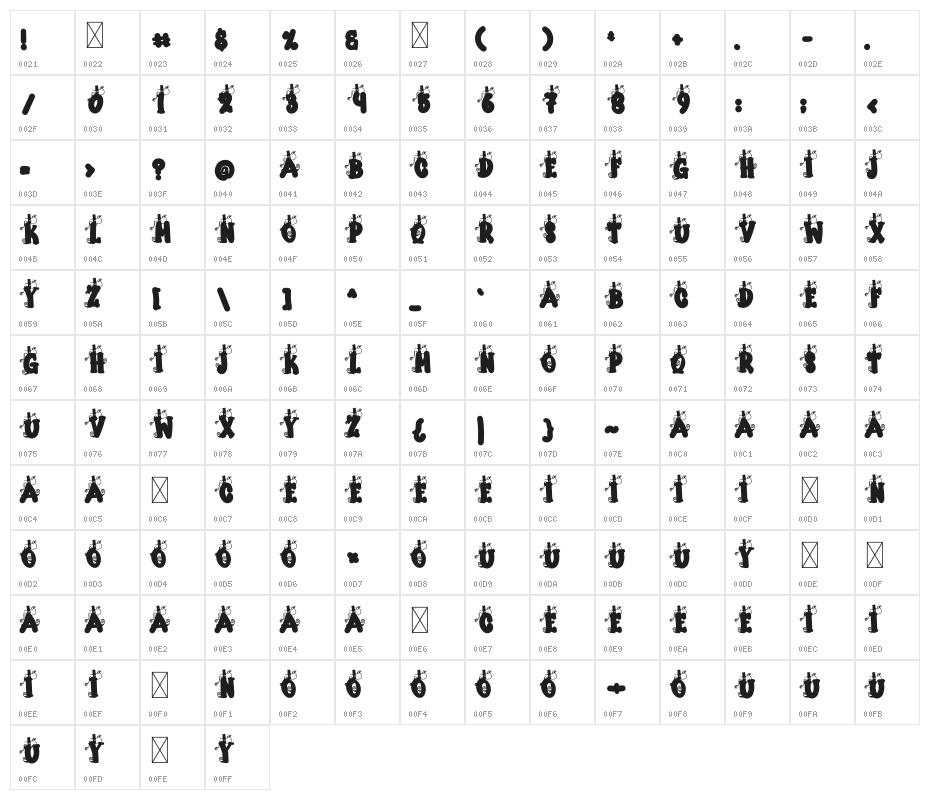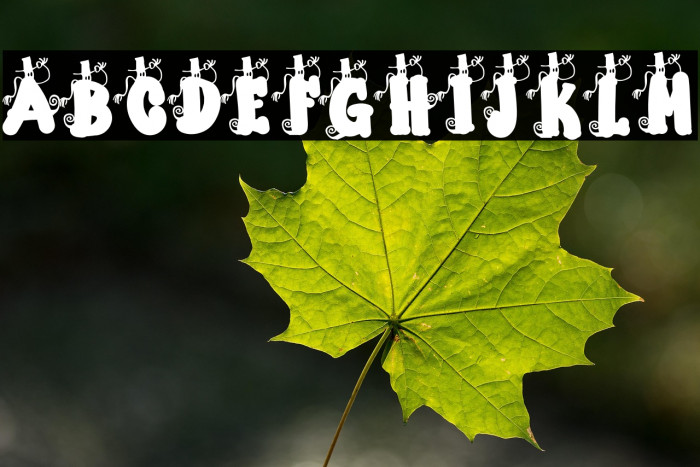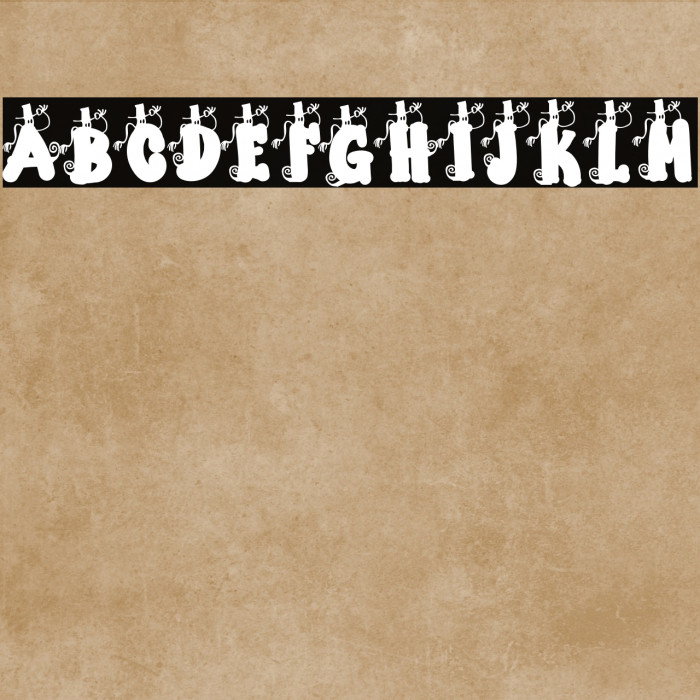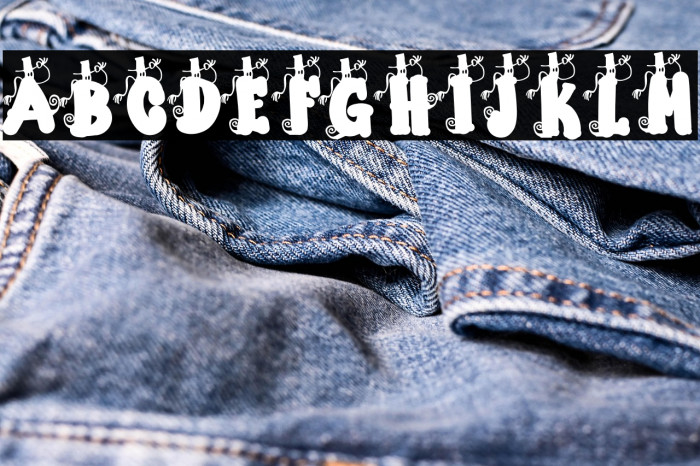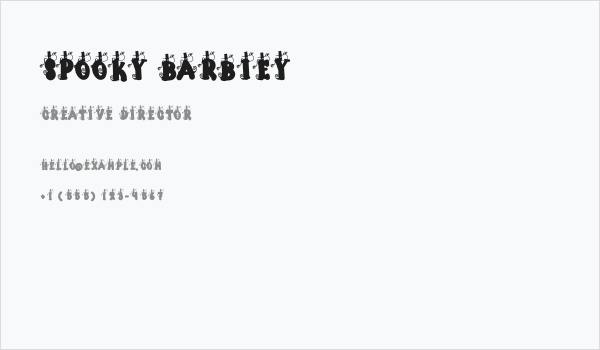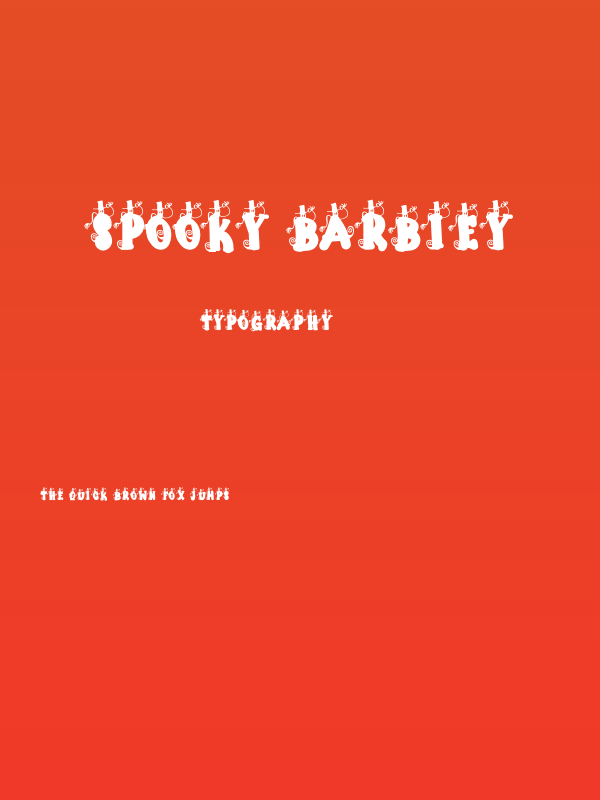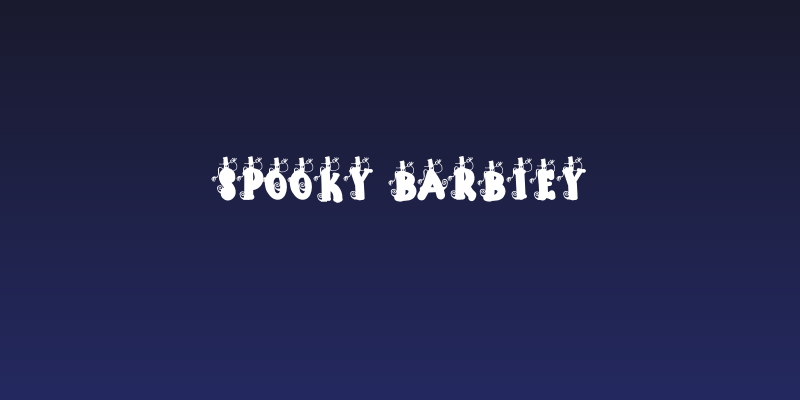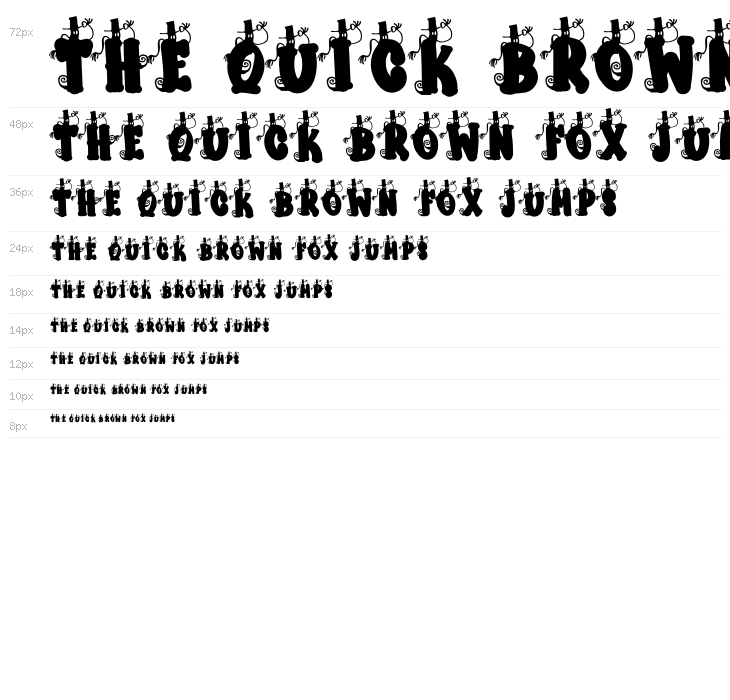
Spooky Barbiey Font
Spooky Barbiey Description
A playful, bold display font with whimsical, spooky elements such as cartoonish spiders and hats integrated into each character, featuring rounded edges and a hand-drawn, decorative style.
| Overall Style | Decorative, Playful, Spooky |
| Use Case | Headlines, Posters, Event Flyers, Themed Logos |
| Proposed Projects | Halloween party invitations, themed posters, children's event flyers, spooky branding, seasonal packaging. |